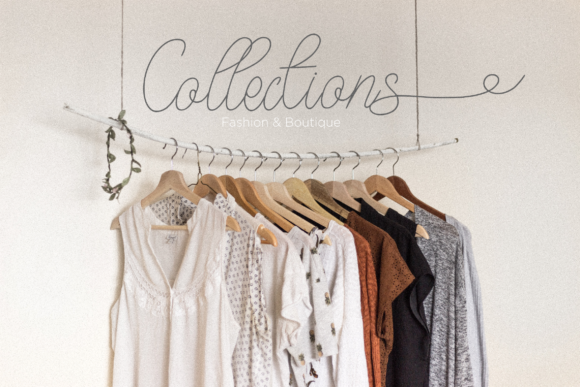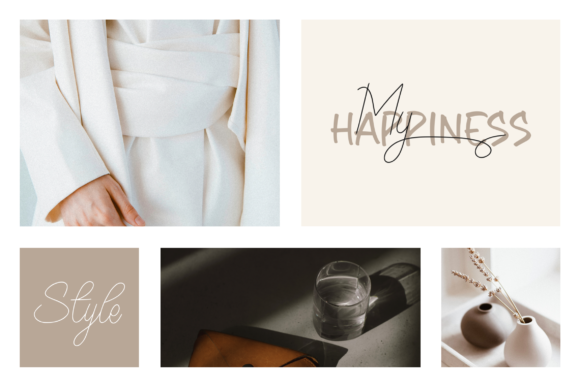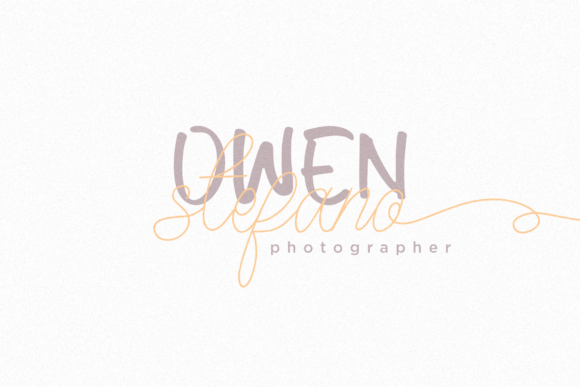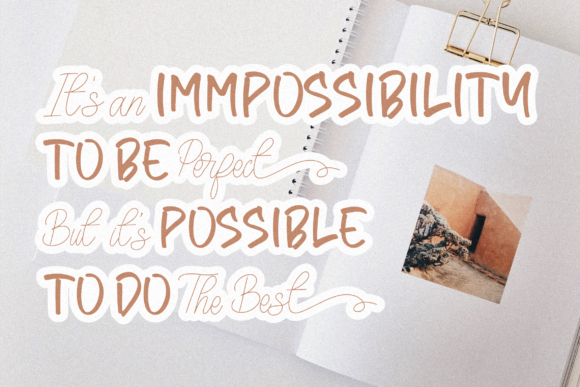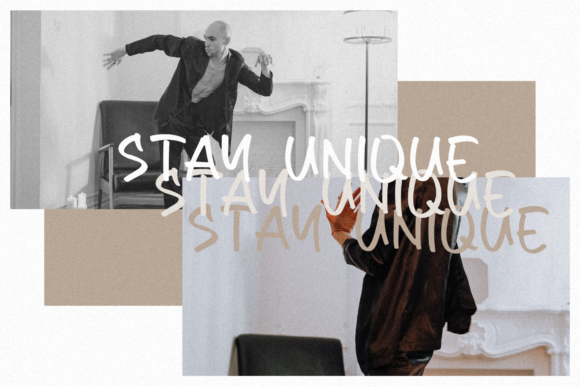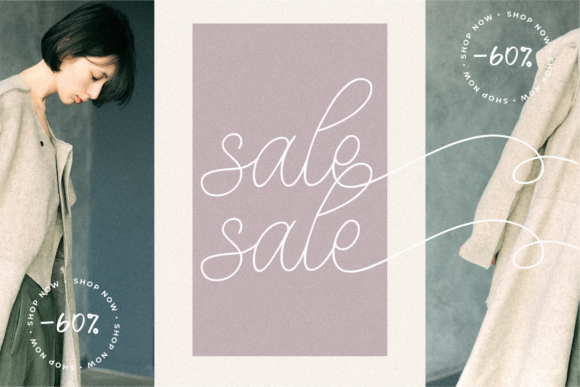
Introduction to Bailey Sidney Font
Have you ever been working on a design project and suddenly, a specific font comes to mind that perfectly captures the essence of your creative vision? For many designers, this moment of serendipity is what makes design so rewarding. And for those who’ve been on the hunt for the perfect script font, we’re excited to introduce the Bailey Sidney Font – a stunning duo script with swash that’s sure to elevate your next creative project.
Whether you’re working on a product packaging design, a branding project, or simply need a beautiful font to express your words above a transparent background, Bailey Sidney Font is an excellent choice. Its high-quality design and versatility make it an invaluable resource for designers, available for free download to spark your creativity and bring your ideas to life.
Key Features of Bailey Sidney Font
- Features a transparent background, allowing for seamless integration into various design settings.
- Includes multiple font styles and weights, providing versatility for different design applications.
- Unique characteristic: Elegant, cursive script with a touch of sophistication, making it perfect for invitations, greeting cards, and other creative projects.
Honest Review: Bailey Sidney Font
As a designer, I’m always on the lookout for high-quality fonts to elevate my creative projects. Recently, I stumbled upon the Bailey Sidney Font, and I’m excited to share my thoughts on this design resource.
- ✨ High-quality design: The Bailey Sidney Font boasts a sophisticated and elegant design that’s perfect for a wide range of creative projects.
- ✨ Transparent background: The font’s transparent background allows for seamless integration with various design elements, giving me more creative freedom.
- ⚠️ Limited language support: Unfortunately, the Bailey Sidney Font only supports a limited number of languages, which may be a drawback for designers working on international projects.
- ⚠️ Not suitable for all font sizes: I’ve noticed that the font may not be as legible at very small or very large font sizes, which is something to keep in mind.
Overall, I’m impressed with the Bailey Sidney Font’s design and versatility. While it has some limitations, it’s still a valuable addition to any designer’s toolkit. If you’re looking for a high-quality font for your creative project, I’d definitely recommend giving the Bailey Sidney Font a try.
To get the most out of the Bailey Sidney Font, use it on a transparent background to create a high-quality design. Experiment with different font sizes and colors to create a visually appealing effect. This font is perfect for use in creative projects, such as logo design, branding, and marketing materials.
The Bailey Sidney Font is commonly used in a variety of design projects, including:
- Logo design and branding
- Marketing materials, such as brochures and flyers
- Website design and development
- Print design, such as business cards and letterheads
Alternatives to Bailey Sidney Font